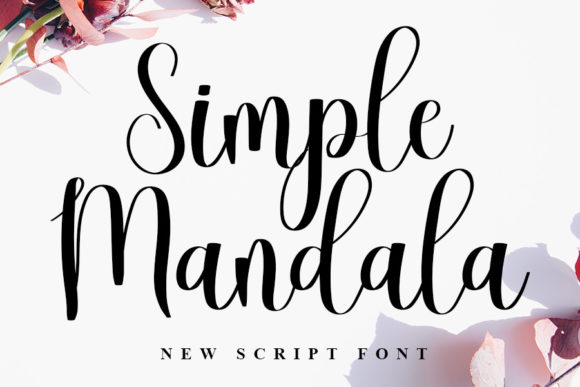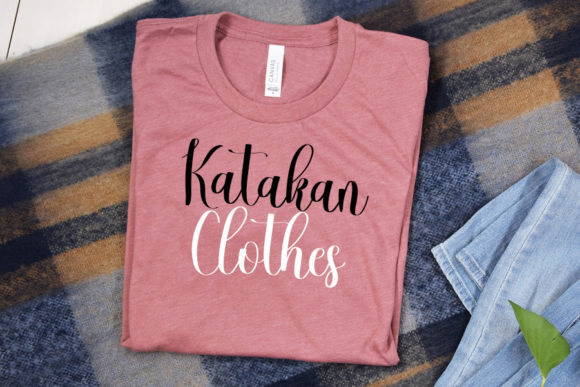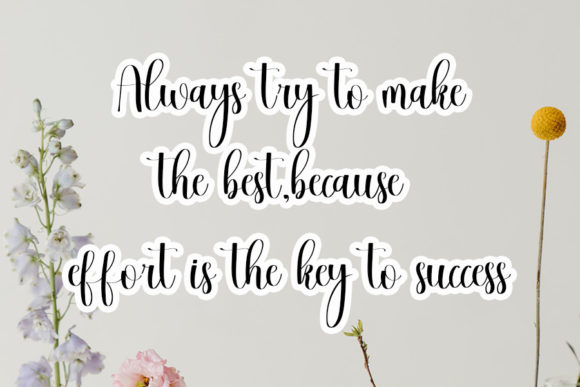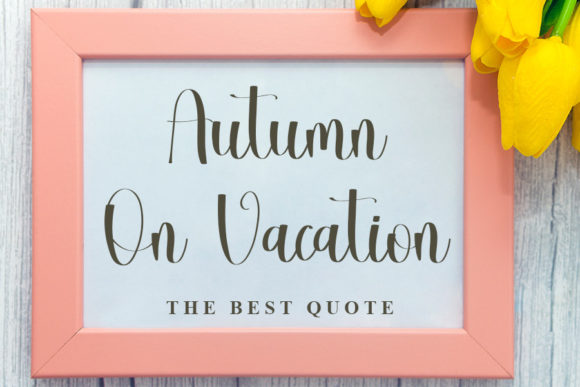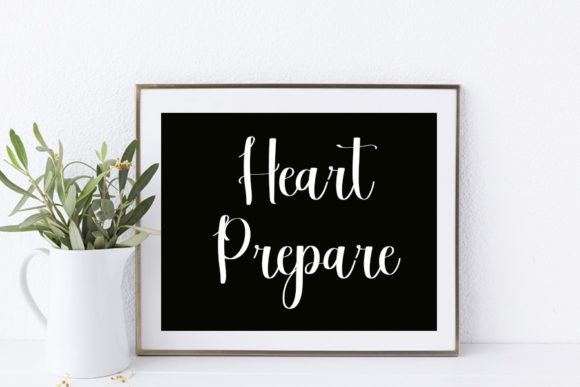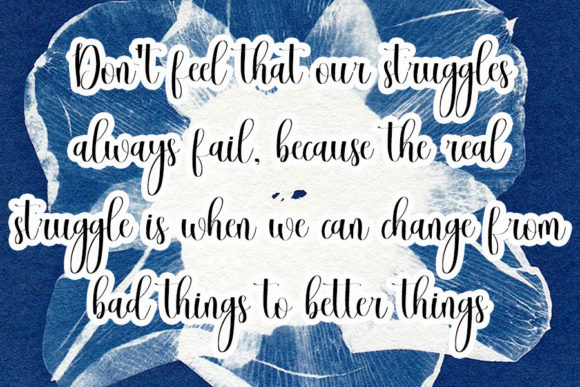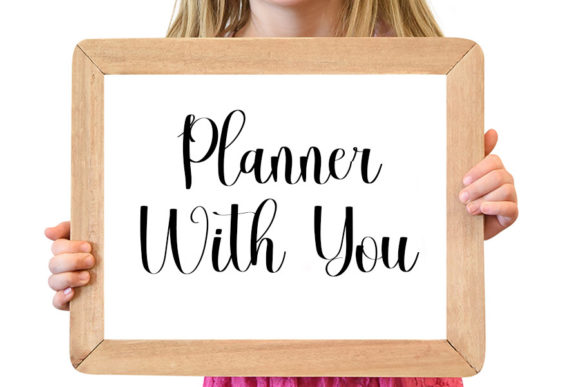
Simple Mandala Font
About Simple Mandala Font
“Simple Mandala” is a beautiful and refined script font meticulously designed to embody a classy, elegant, and modern aesthetic. Versatile in its application, this font is well-suited for a range of design projects including logos, branding, invitations, stationery, wedding designs, social media posts, and more.
The classy and elegant look of “Simple Mandala” makes it a sophisticated choice for projects that require a touch of timeless style. Its modern aesthetic ensures that it seamlessly adapts to contemporary design trends, allowing you to create visually appealing and on-trend compositions.
One standout feature of “Simple Mandala” is its PUA encoding, providing users with easy access to a wide array of amazing glyphs and ligatures. This feature enhances the font’s creative potential, allowing designers to effortlessly access and incorporate unique characters and flourishes into their projects.
In summary, “Simple Mandala” is more than just a font; it’s a beautiful and refined design asset that combines class, elegance, and modernity. With PUA encoding, designers can effortlessly access its amazing glyphs and ligatures, making it a user-friendly option for creating visually stunning and sophisticated designs across a variety of applications. Whether applied to branding or other creative projects, “Simple Mandala” brings a touch of class and elegance to every design it graces.